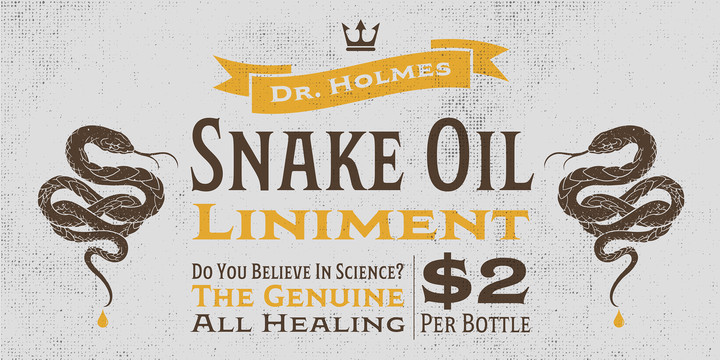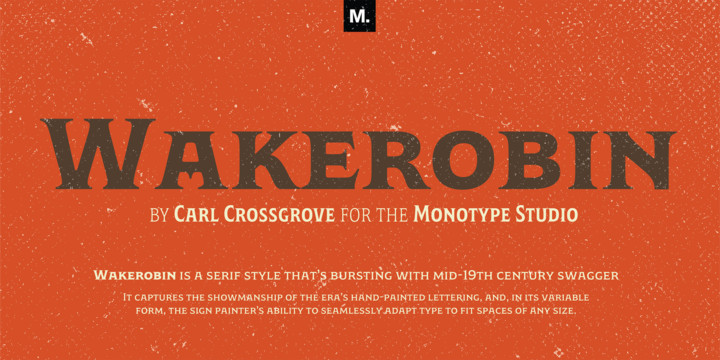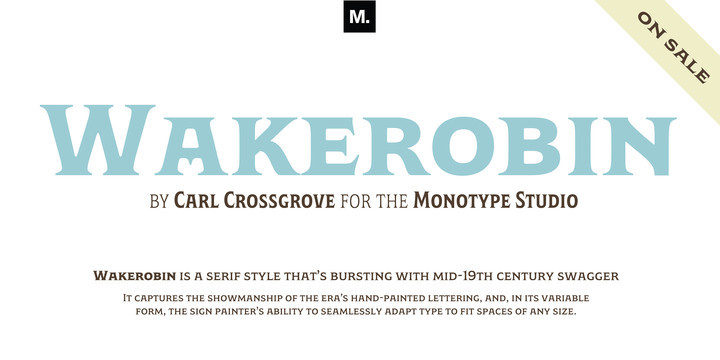
Wakerobin takes its charming swagger from the hand-painted billboard, poster and signage lettering of the mid-19th century. These showy styles did everything they could to stand out from the background cacophony of advertising, with signwriters using sharp and high contrast serif letters, squared block shapes, or art nouveau forms to grab the attention of passersby.